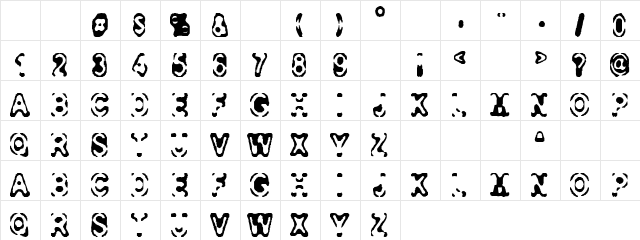
Single Pz Regular
Design Context for Single Pz Typeface
Single Pz is a composed and adaptable typeface that performs quietly and consistently across a wide range of design contexts.